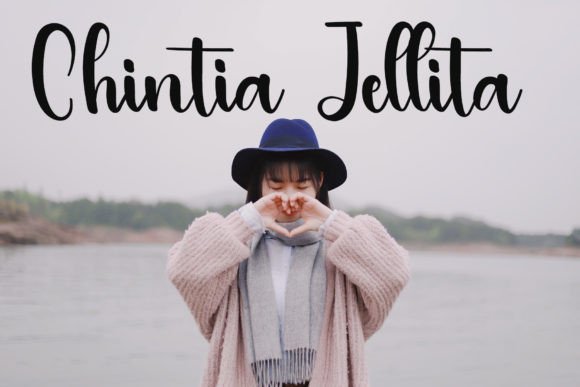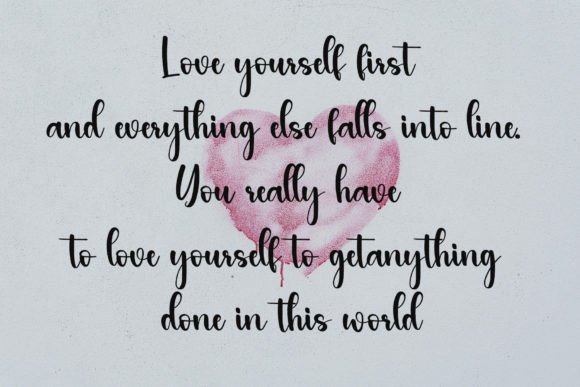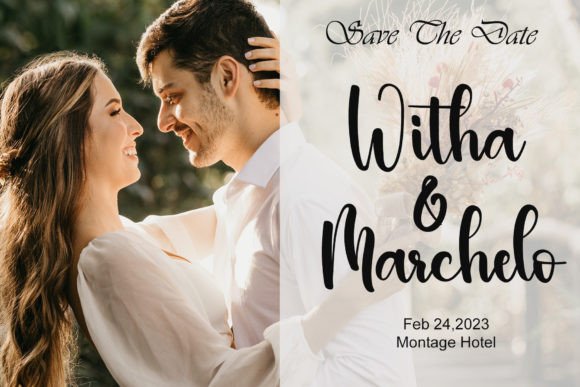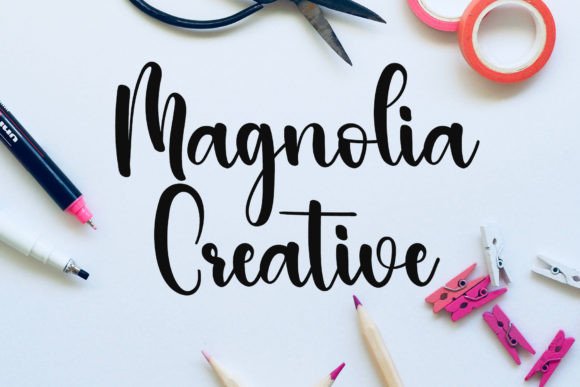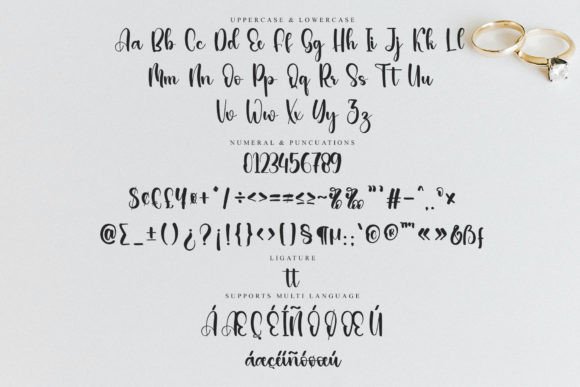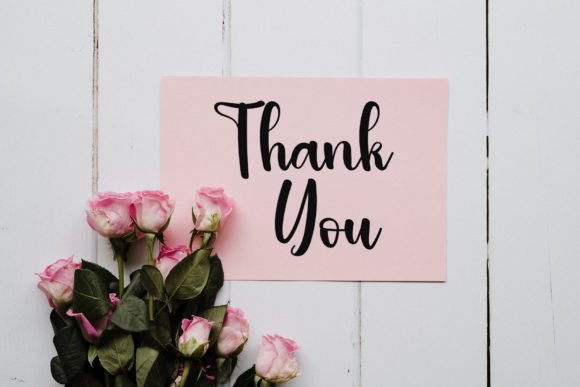
Introduction to Sella Font
Have you ever been working on a creative project, pouring your heart and soul into it, only to feel like something’s missing? Maybe it’s the perfect font to elevate your design and bring it to life. That’s where Sella Font comes in – a stylish handwritten font with a contemporary atmosphere and impeccable form, inspired by timeless classic calligraphy.
As designers, we’re always on the lookout for high-quality design resources that can add that extra oomph to our projects. And Sella Font is definitely one to consider. With its balanced and varied style, this font is designed to enhance the beauty of your projects, whether you’re working on a logo, brochure, or social media graphic.
Sella Font
- High-quality, elegant design suitable for creative projects and various design applications.
- Features a transparent background, allowing for easy customization and integration into any design.
- Comes in a single font style with multiple weights, providing flexibility for various design applications.
- Designed with a focus on legibility and readability, making it suitable for body text and headings.
Honest Review: Sella Font
I recently stumbled upon the Sella Font, a free download that has been a game-changer for my creative projects. The high-quality design resource has been a breath of fresh air, offering a unique and stylish touch that elevates my work.
- ✨ Unique and Versatile: The Sella Font is incredibly versatile, suitable for a wide range of design projects, from logos to digital art.
- ✨ High-Quality Graphics: The font is designed with high-quality graphics, ensuring a crisp and clear appearance, even at larger sizes.
- ✨ Transparent Background: The transparent background of the font allows for seamless integration with any design, making it a great addition to any creative project.
While the Sella Font is an excellent resource, there are a few limitations to consider: ⚠️ Limited Character Set: The font only includes a limited character set, which may not be suitable for all design projects. Additionally, ⚠️ Licensing Restrictions: Be sure to check the licensing terms before using the font in commercial projects.
Overall, the Sella Font is a great addition to any designer’s toolkit. Its unique design and high-quality graphics make it a valuable resource for creative projects. While it may have some limitations, the benefits far outweigh the drawbacks, making it a worthwhile download for designers of all levels.
Sella Font is ideal for use in various creative projects, such as logo design, typography-based art, and presentation design. Its transparent background makes it easy to layer over images and other design elements.
Tips for Getting the Most Out of Sella Font
To get the most out of Sella Font, experiment with different font sizes, colors, and combinations to find the perfect look for your design. You can also pair it with other high-quality design resources for a professional finish.